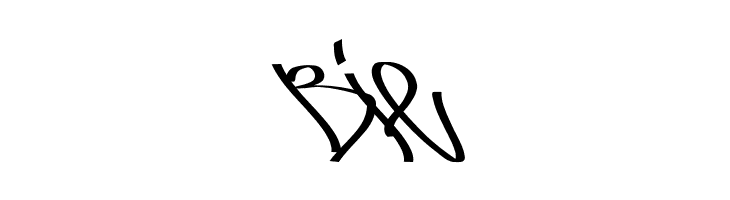
Graffiti Fonts
Arena Graffiti Font
A bold, graffiti-inspired font with dynamic, expressive strokes.
Arfmoochikncheez Font
A bold, playful font with exaggerated strokes and a cartoonish style.
ArghDemo Italic Font
A bold, jagged, and italicized font with a graffiti-like, hand-drawn style.
Arise Font
A playful, bold, and bubble-like font with a cartoonish vibe.
ARKING-Regular Font
Font by Alex Tomlinson - Skyhaven Fonts - shfonts.com
A decorative and artistic font with intricate, whimsical letterforms.
Arma Blanca BCN Font
A bold, distressed font with a gritty, urban style and splatter-like details.
arsone Font
Font by M. Ramos
A graffiti-inspired font with bold, sweeping lines and a dynamic, urban aesthetic.
Artificial Intelligence Is Shit Font
Font by Woodcutter
A bold, distressed font with a gritty, urban street art style.
Asesinato Matutino Font
A raw, edgy font with jagged strokes and a graffiti-like aesthetic.
ASIAN INFLUENCE Font
Font by www.urbanhookupz.com
A bold, fluid script font with dramatic, calligraphic strokes.
Assassin Nation 3D Regular Font
Font by Daniel Zadorozny - www.iconian.com
A bold, graffiti-inspired font with a 3D effect and intricate details.
Assassin Nation Outline Regular Font
Font by Daniel Zadorozny - www.iconian.com
An edgy, graffiti-inspired outline font with a raw, urban feel.
Astakhov Access Degree ASF Font
A decorative, outline-style font with a playful, artistic flair.
Astakhov Dished Skin E-F-2 Font
A bold, textured font with a cracked, graffiti-like appearance.
Atonement DEMO Regular Font
Brittney Murphy
An expressive, hand-drawn font with a graffiti-like, artistic style.
Attack Graffiti Font
A bold, graffiti-style font with dynamic strokes and authentic street art elements.
Attack Graffiti Font
A bold, graffiti-inspired font with dynamic, spray-painted strokes.
Attack the Block Font
Font by Woodcutter
A bold, blocky font with a modern, urban aesthetic.
Avalon Old Skool Graff Font